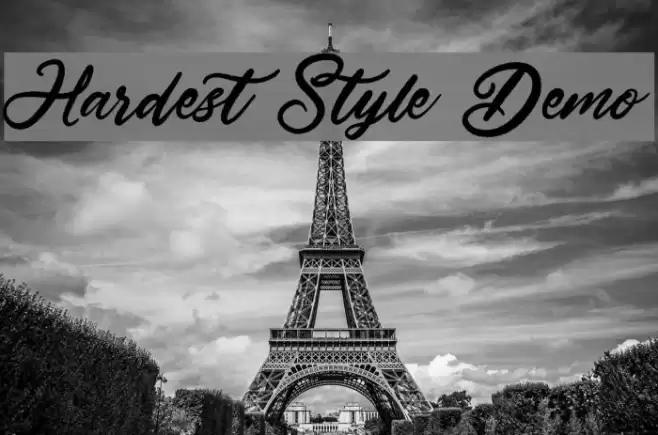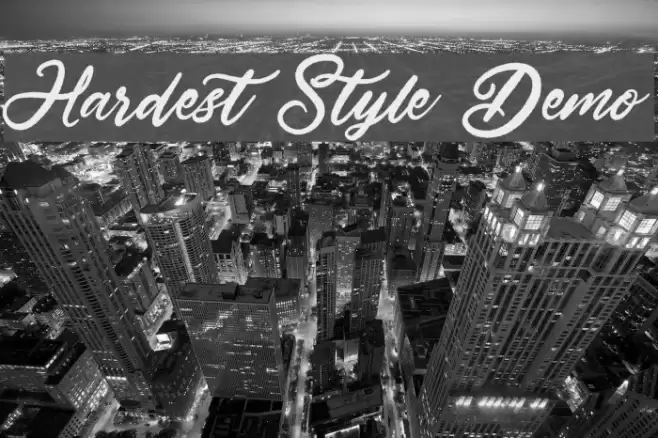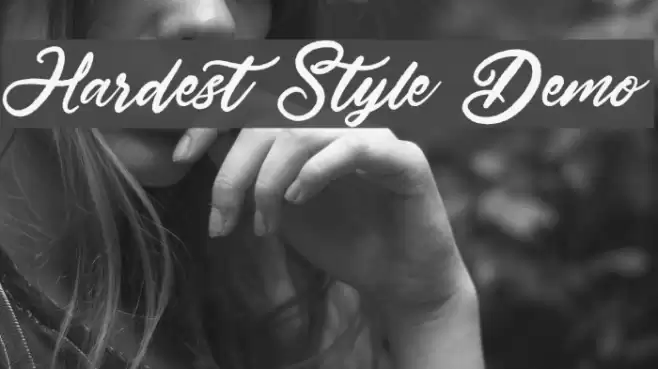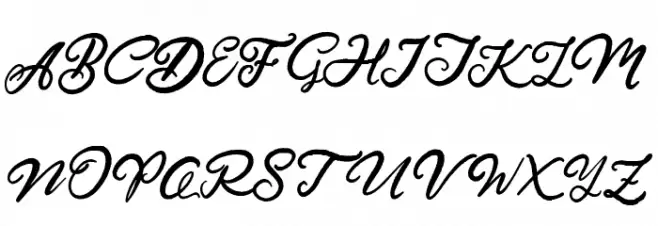
Hardest Style Demo Font
Hardest Style Demo Description
This font showcases a dynamic and flowing script style, characterized by its elegant and cursive letterforms. The uppercase letters exhibit a graceful, looping design with consistent stroke widths, while the lowercase letters maintain a smooth, connected appearance. The font exudes a sense of sophistication and fluidity, making it ideal for projects that require a touch of elegance. Its design is reminiscent of traditional calligraphy, yet it maintains a modern appeal. The characters are well-balanced, with a slight slant that enhances the overall fluidity of the text. This font is versatile, suitable for both formal and creative applications, and it captures attention with its stylish and refined aesthetic.
A dynamic and elegant script font with flowing, cursive letterforms from Script fonts.
- Proposed Projects: Ideal for wedding invitations, branding, greeting cards, and elegant logos.
- Overall Style: Elegant, Modern
- Use Case: Logos, Invitations, Branding